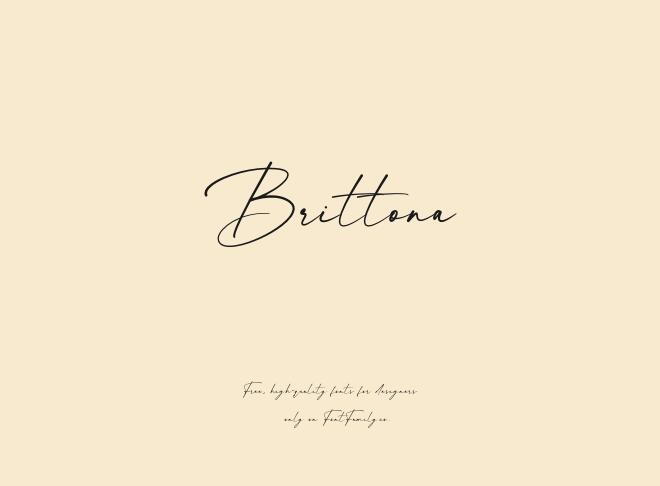
Brittona Font
Brittona Font is a beautifully crafted modern handwritten font designed by Bruno Marsden. It effortlessly merges elegance with a contemporary flair, making it a versatile choice for a wide range of design projects. Its unique character design sets it apart from other handwritten fonts, offering a fresh perspective in the typography world. Brittona Font is similar to other popular fonts but stands out with its unique twists and curves, giving your designs an exclusive touch. It's perfect for logos, branding, social media posts, and even wedding invitations. Its open font license makes it a great choice for both personal and commercial use. With its modern and elegant charm, Brittona Font is sure to make your designs stand out and leave a lasting impression.